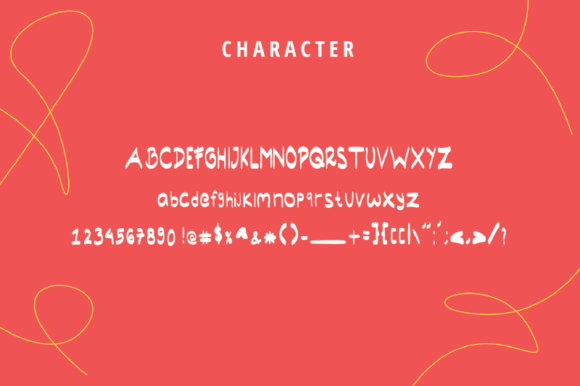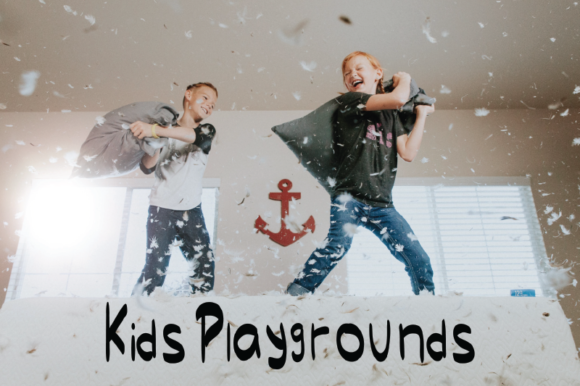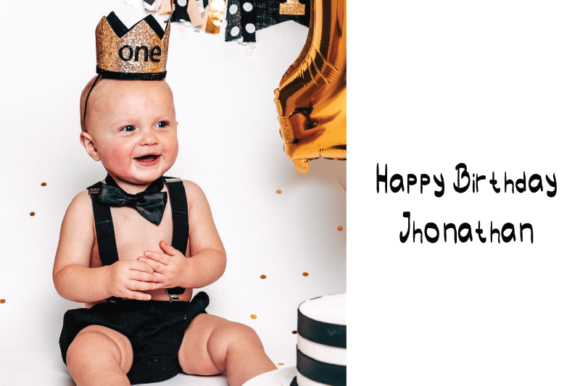
Odense Font
About Odense Font
Odense is a handwritten font with a very cute appearance and resembles the writing of a small child. Fall in love with its charming look & feel!